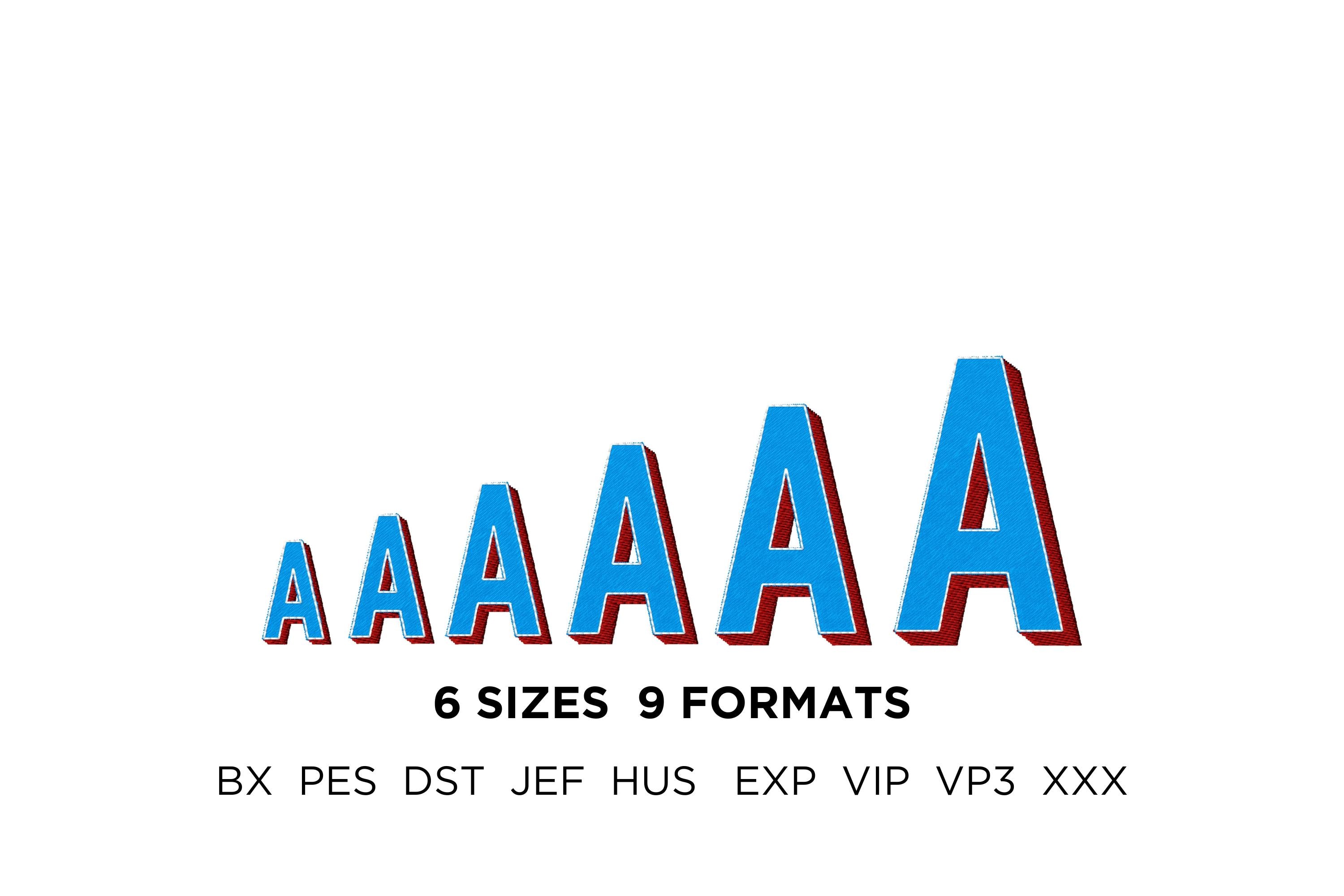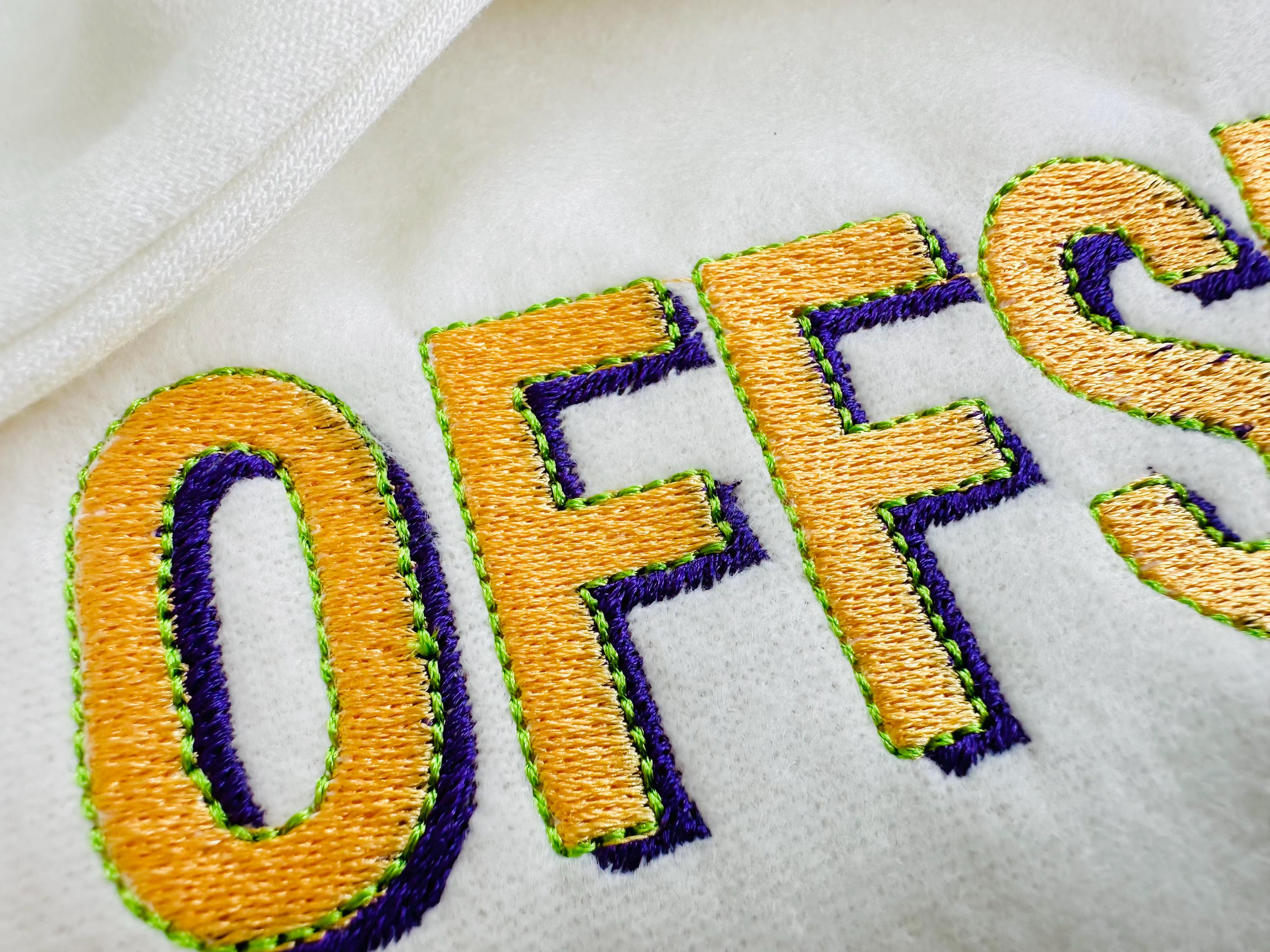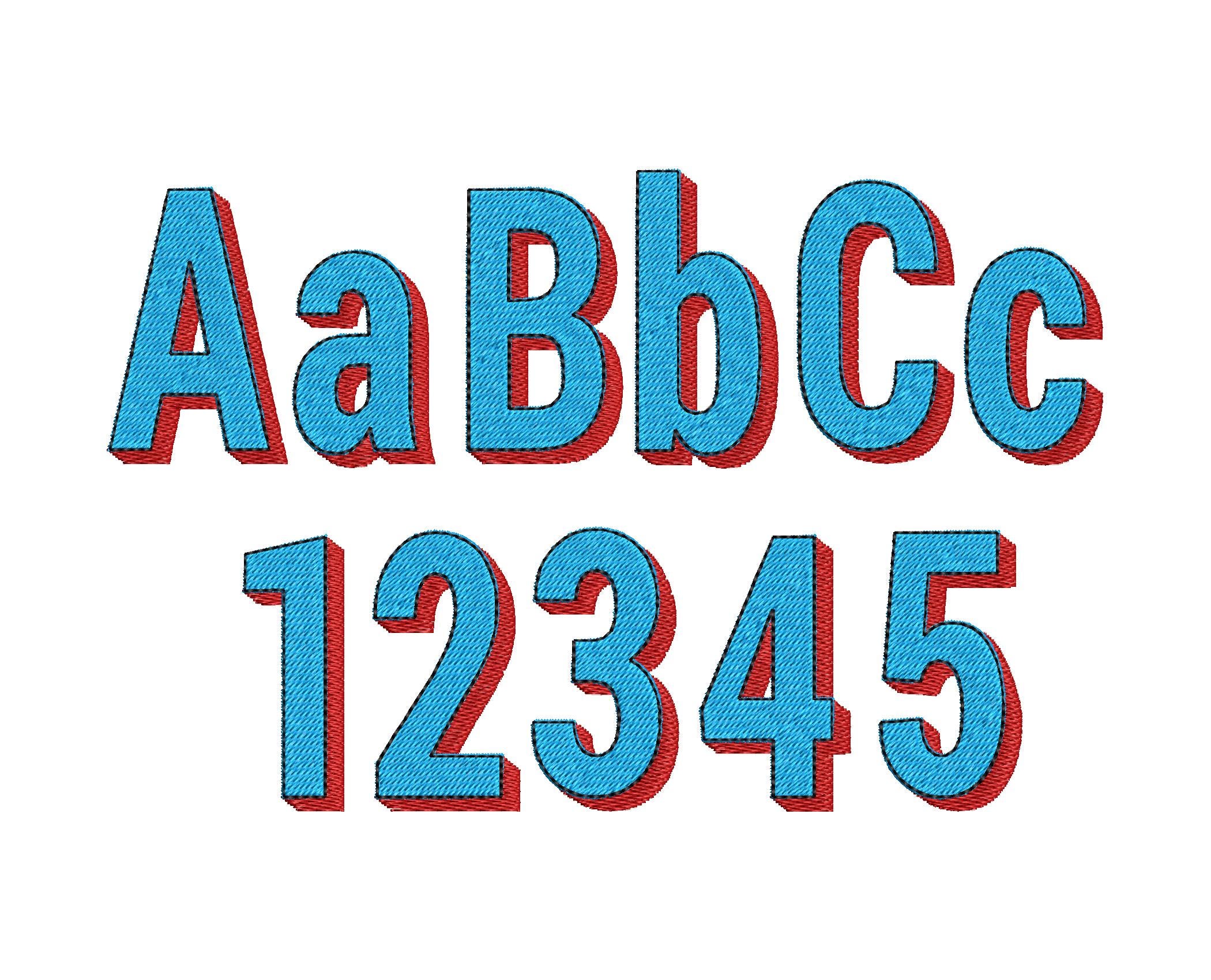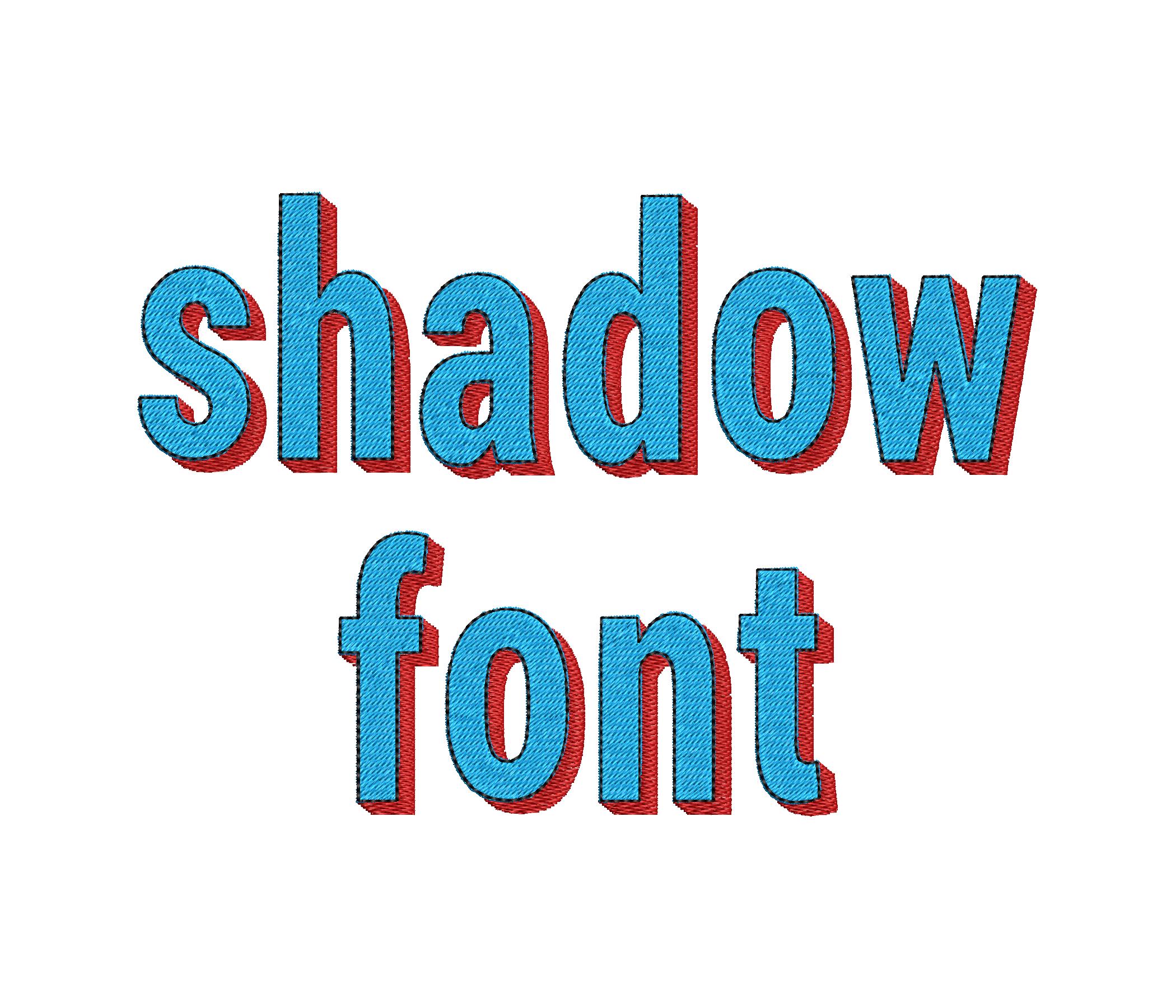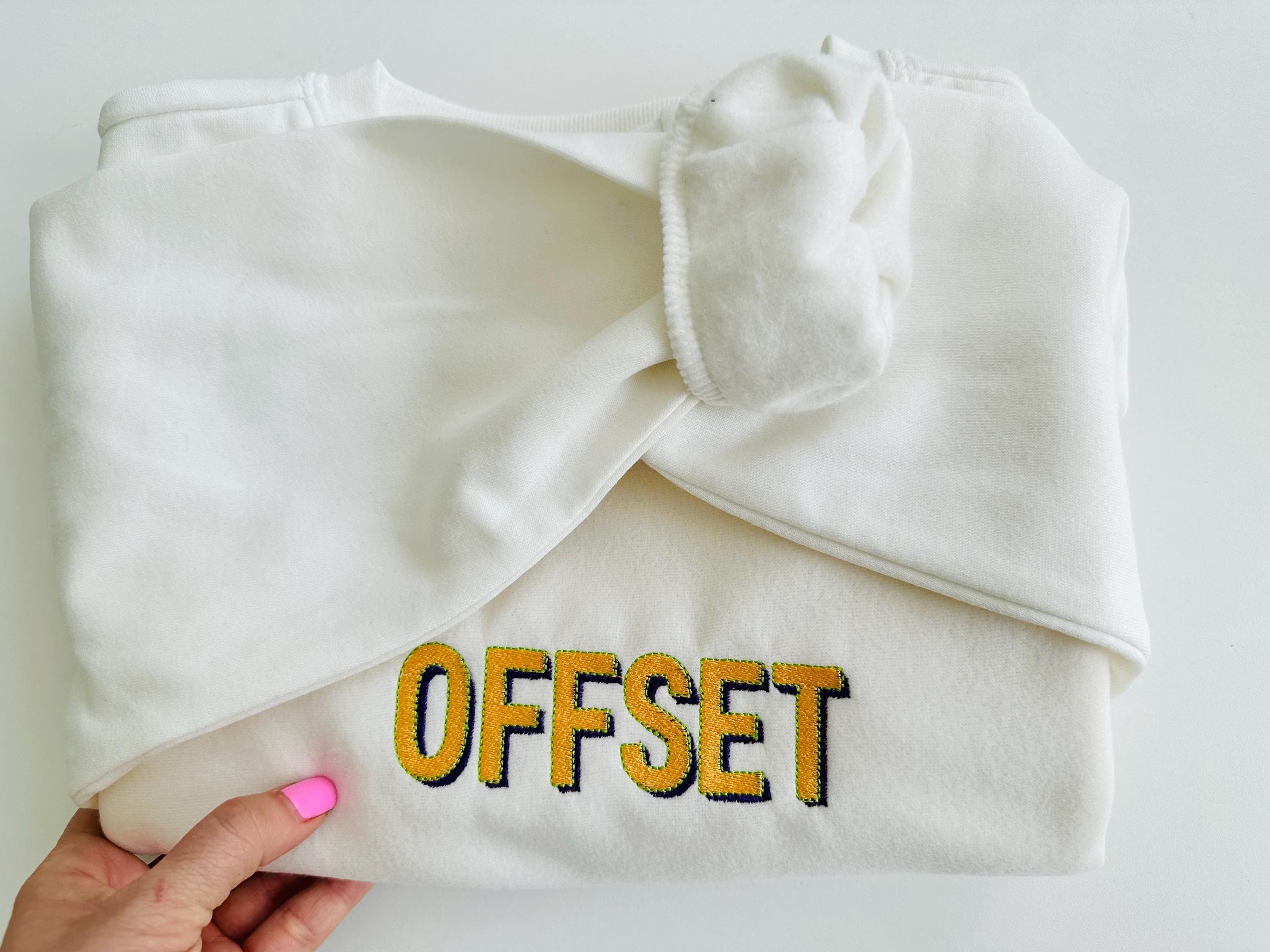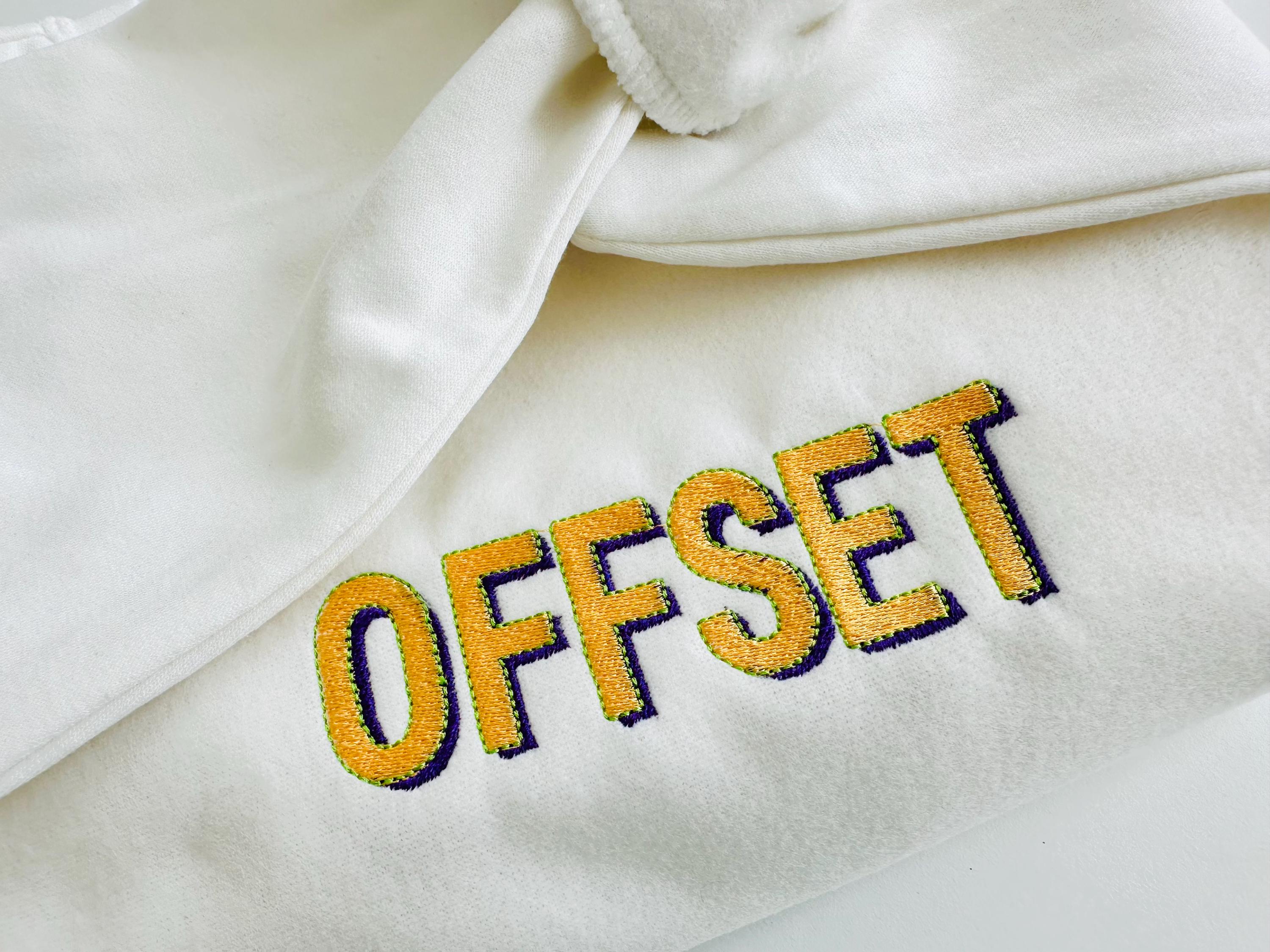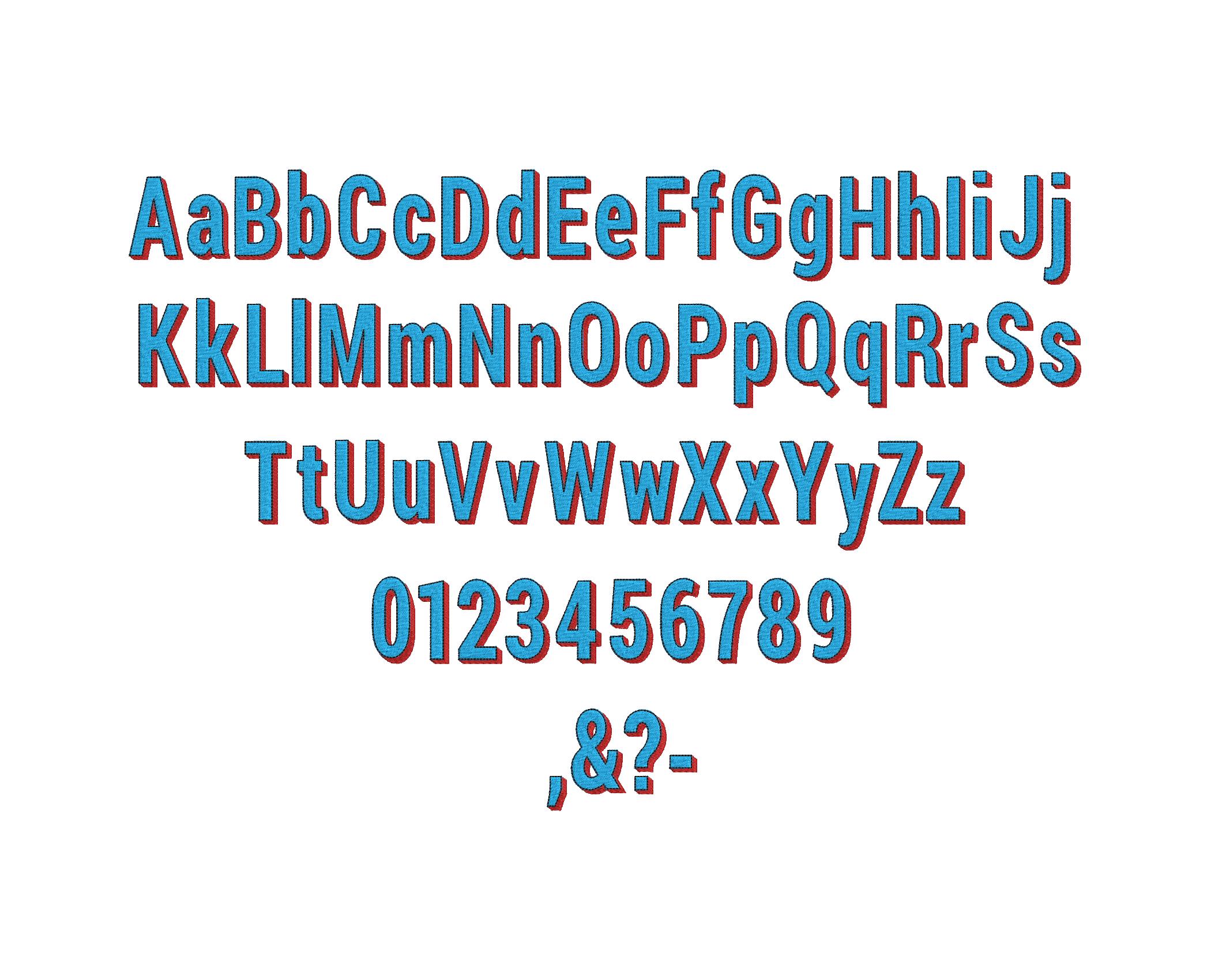
Shadow Block FONT machine embroidery designs shadowed alphabet monogram fill stitch bold Font sport Font many sizes 1 up to 3 inches, BX
Whole alphabet Aa-Zz uppercase and lowercase letters, numbers 0-9, and punctuation.
This three-color block font features fill stitch letters with a nice shadow and an outline.